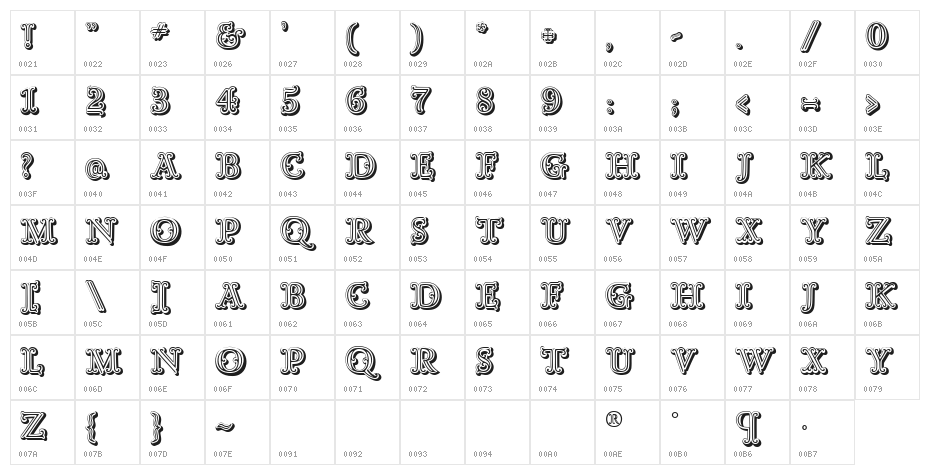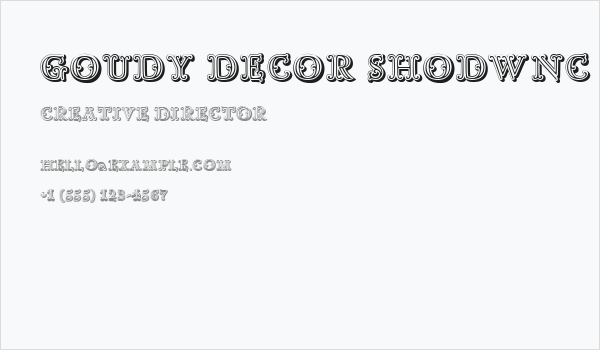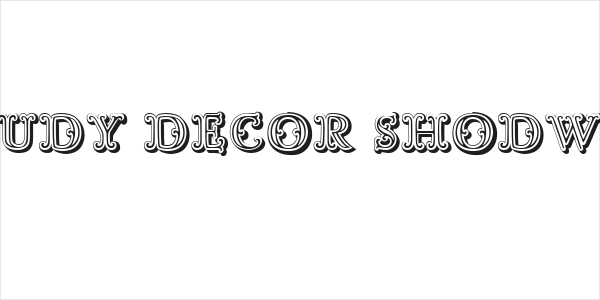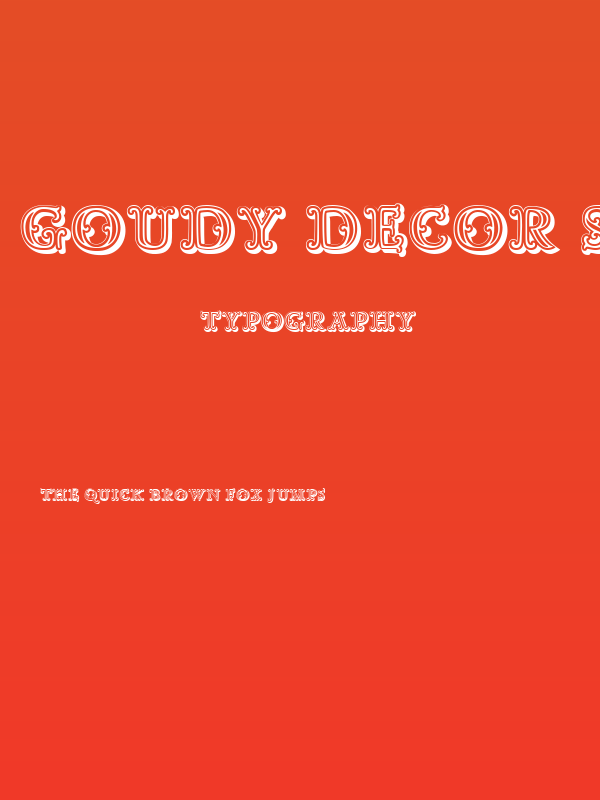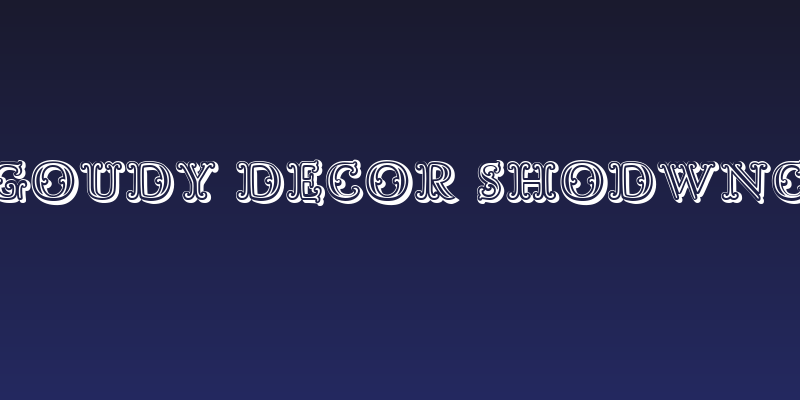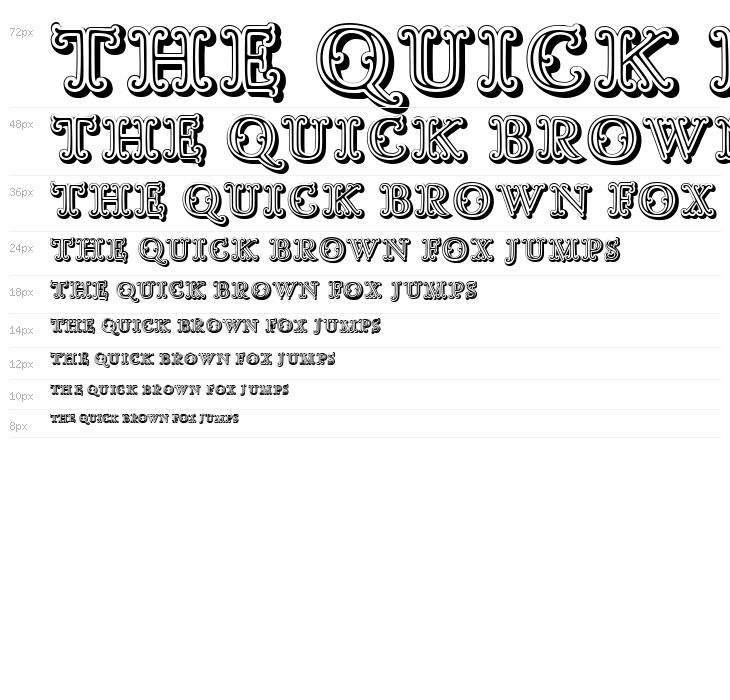
Goudy Decor ShodwnC Font
Goudy Decor ShodwnC Description
This font features a bold and decorative style with intricate detailing that gives it a three-dimensional appearance. The letters are outlined with a thick border, adding depth and a shadow effect that enhances its visual impact. The uppercase letters are designed with a classic serif structure, while the numbers and special characters maintain the same ornate style, making them stand out. The font's elaborate design is suitable for creating eye-catching headlines and logos, where a touch of elegance and sophistication is desired. Its unique style makes it ideal for projects that require a vintage or retro aesthetic, providing a sense of nostalgia and charm.
| Proposed Projects | Ideal for vintage-themed designs, posters, logos, and headlines that require a bold statement. |